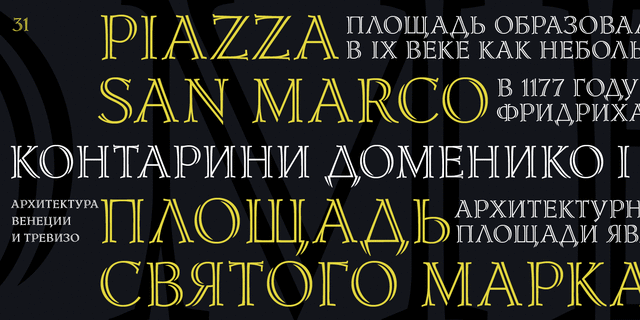
About LidiaLidia is a decorative title typeface, designed at Polygraphmash type design bureau in 1967 by Iraida Chepil'. It is a decorative variant ('open', or 'engraved') of classical serif typefaces. The font works well in magazine headlines, title and display typography. The revised and completed digital version was designed for ParaType in 2005 by Victor Kharyk.